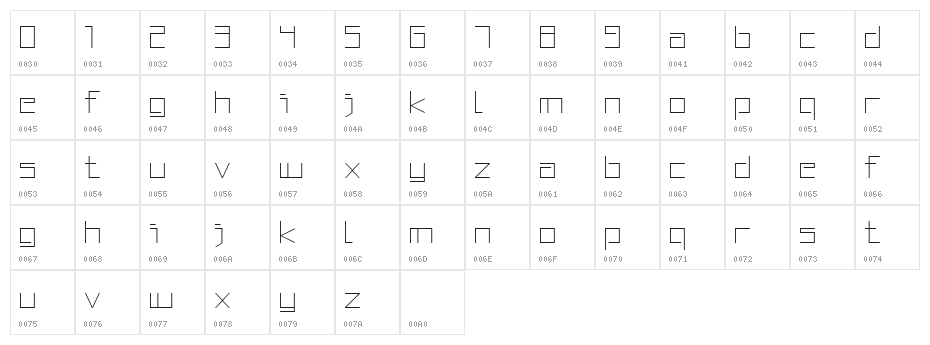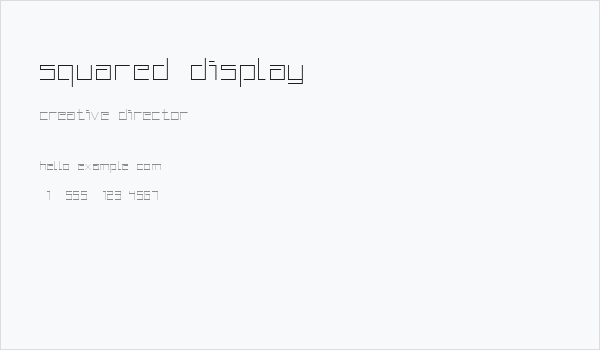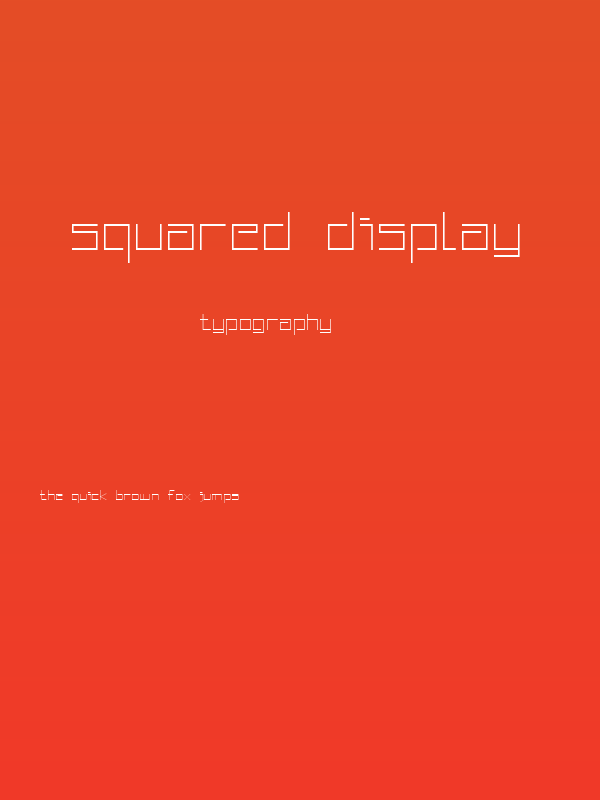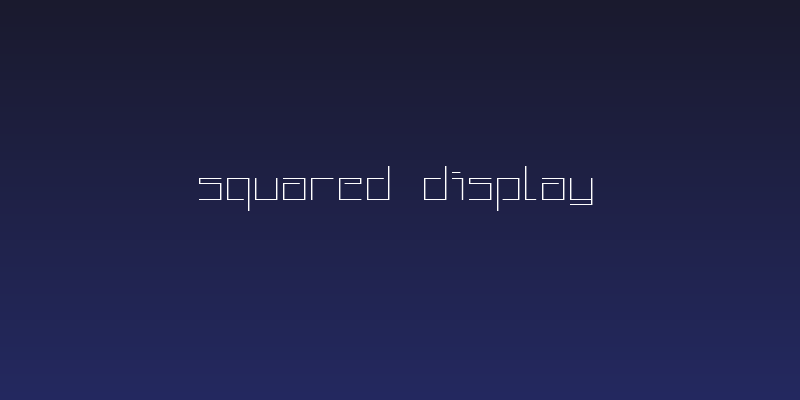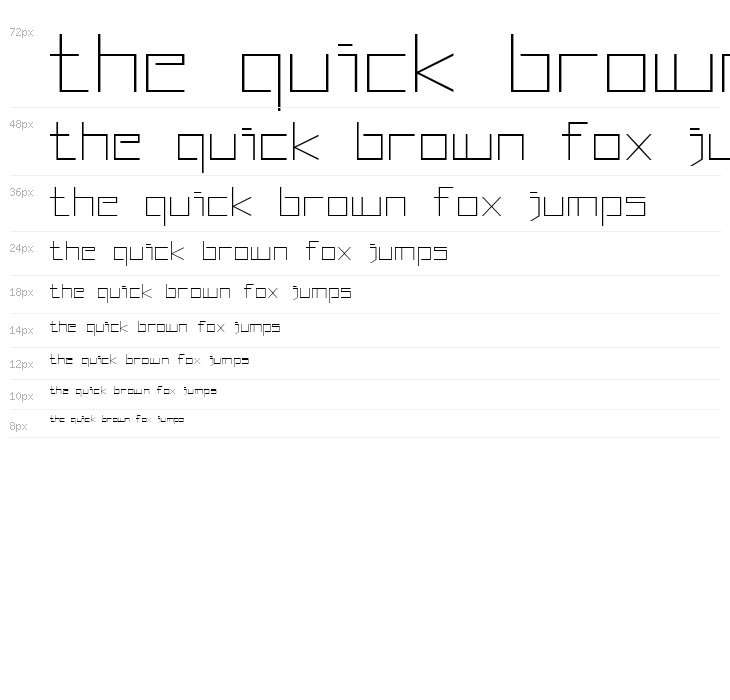
Squared Display Font
Squared Display Description
This font features a geometric and minimalist design with a squared, grid-like structure. Each character is composed of straight lines and right angles, giving it a modern and technical appearance. The uniform line thickness across all characters contributes to a clean and consistent look. The uppercase and lowercase letters maintain a similar height, enhancing the uniformity. The numerals follow the same squared style, ensuring cohesion throughout the font. This font's precise and structured design makes it ideal for projects that require a contemporary and futuristic aesthetic.
| Use Case | Logos, Headlines, Digital interfaces |
| Proposed Projects | Ideal for technology branding, digital interfaces, modern posters, and architectural designs. |